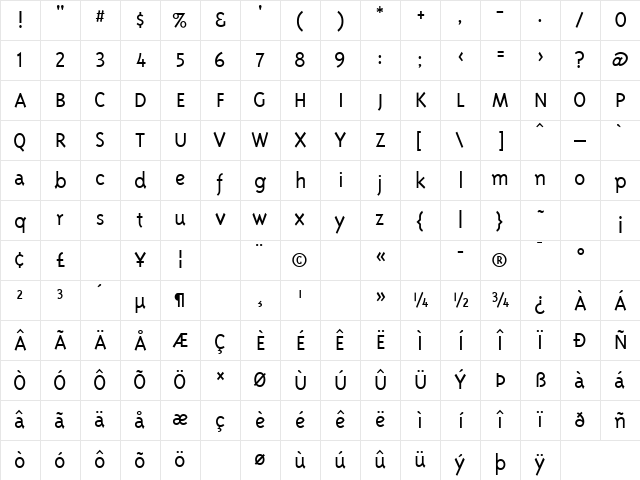
TriplexLightLining Regular
Design Context for TriplexLightLining
TriplexLightLining is a composed and adaptable typeface that performs quietly and consistently across a wide range of design contexts. Its slender proportions lend an understated elegance to any composition.